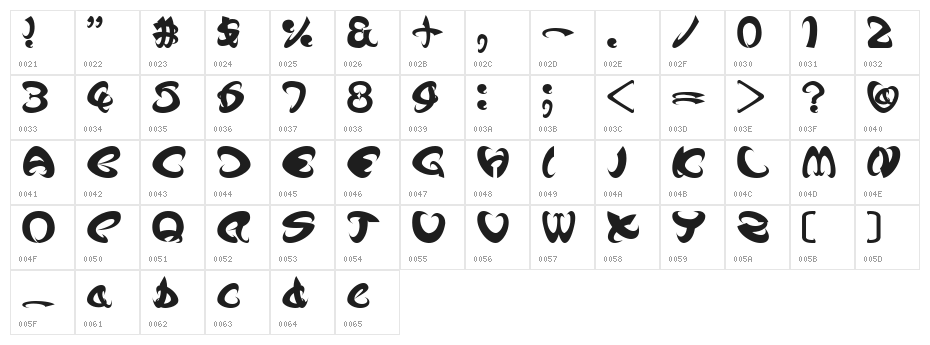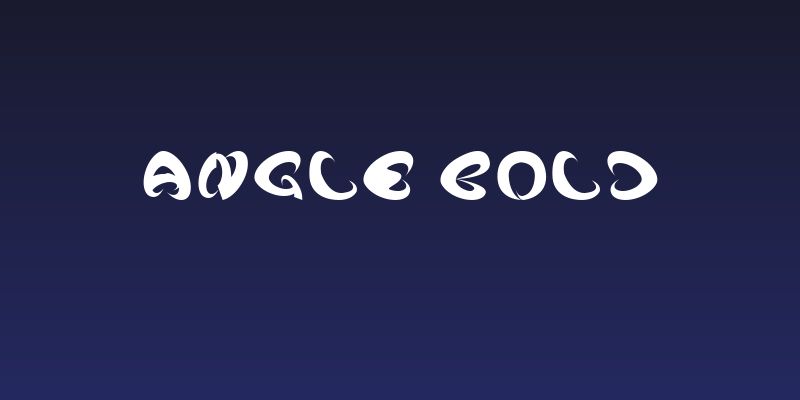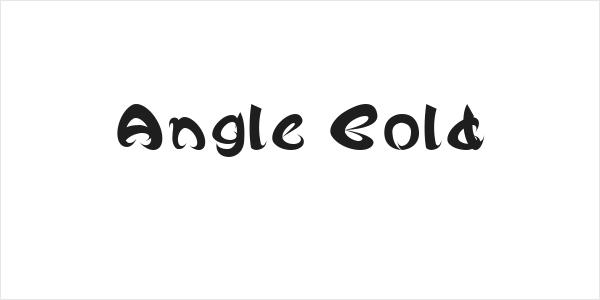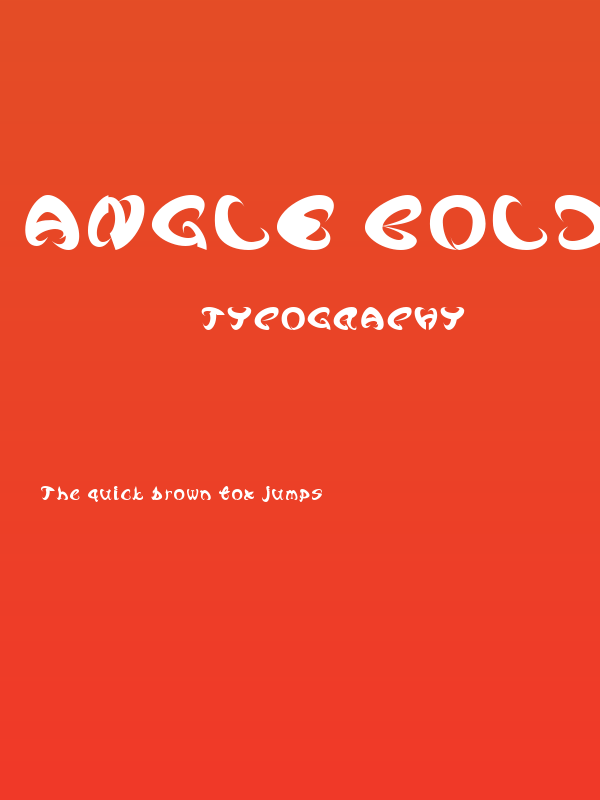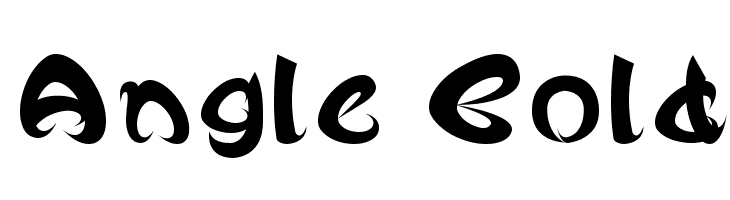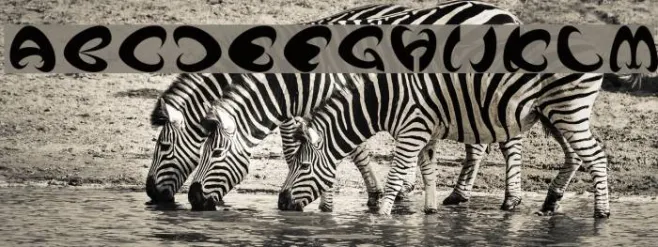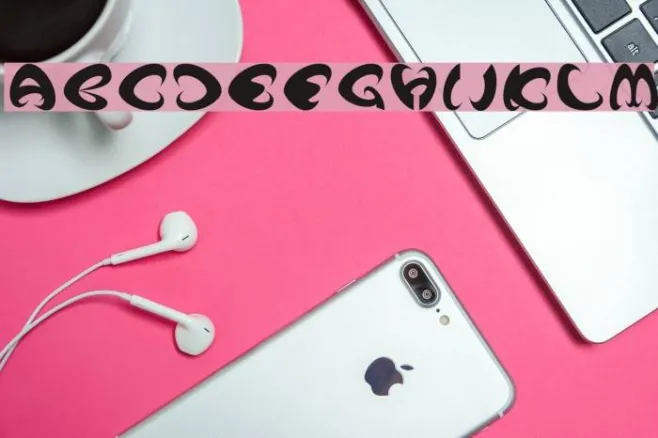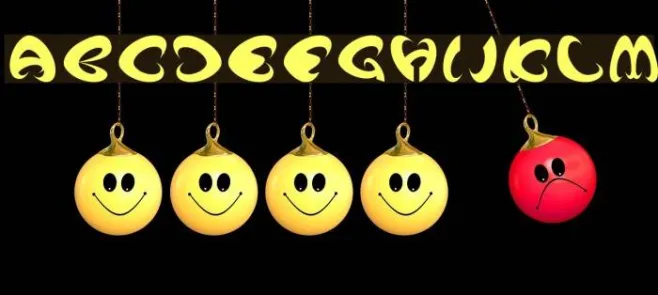
Angle Bold Font
Angle Bold Description
This font features a bold and dynamic style with a unique, artistic flair. Each character is designed with a sense of movement, incorporating sharp angles and curves that create a sense of energy and fluidity. The uppercase letters are particularly striking, with exaggerated forms that make a strong visual impact. The lowercase letters maintain this boldness while offering a slightly more subdued appearance, ensuring readability. Numbers and special characters are consistent in style, adding to the overall cohesive look. This font is ideal for projects that require a bold statement and a touch of creativity.
| Overall Style | Modern, Artistic |
| Proposed Projects | Ideal for branding, posters, album covers, and any creative project needing a bold statement. |